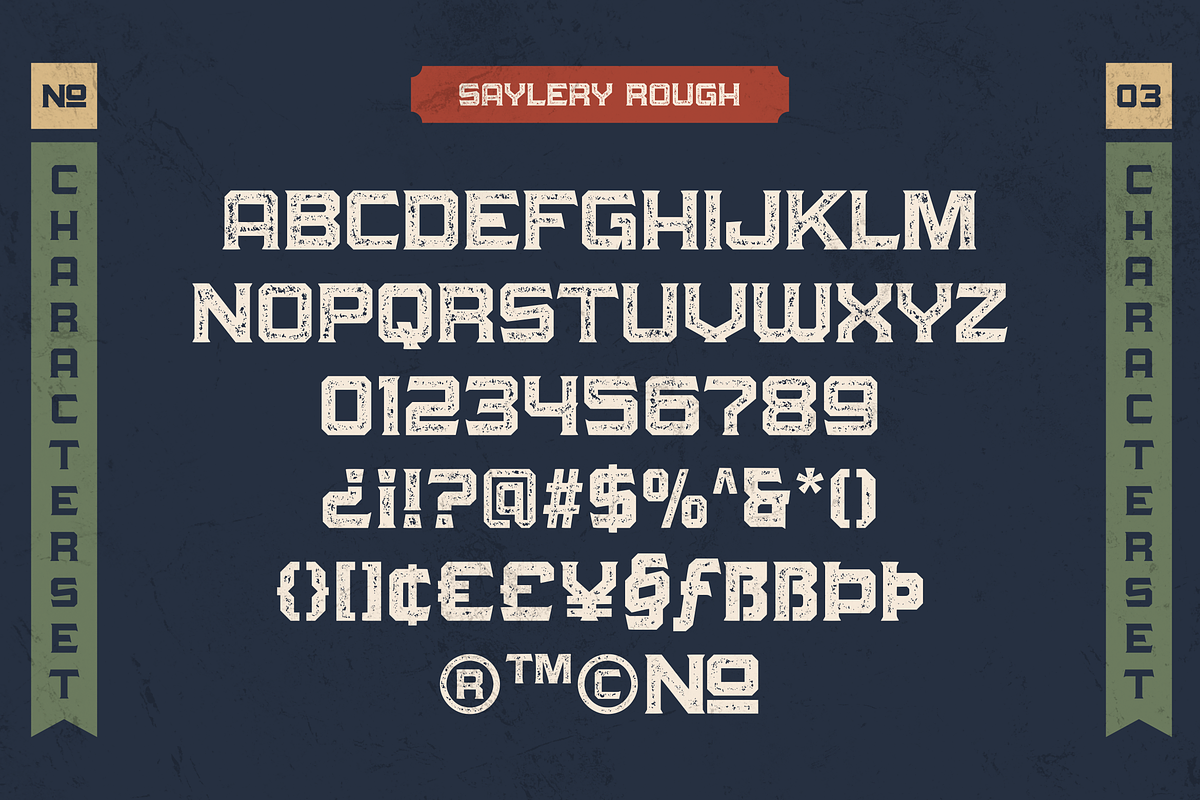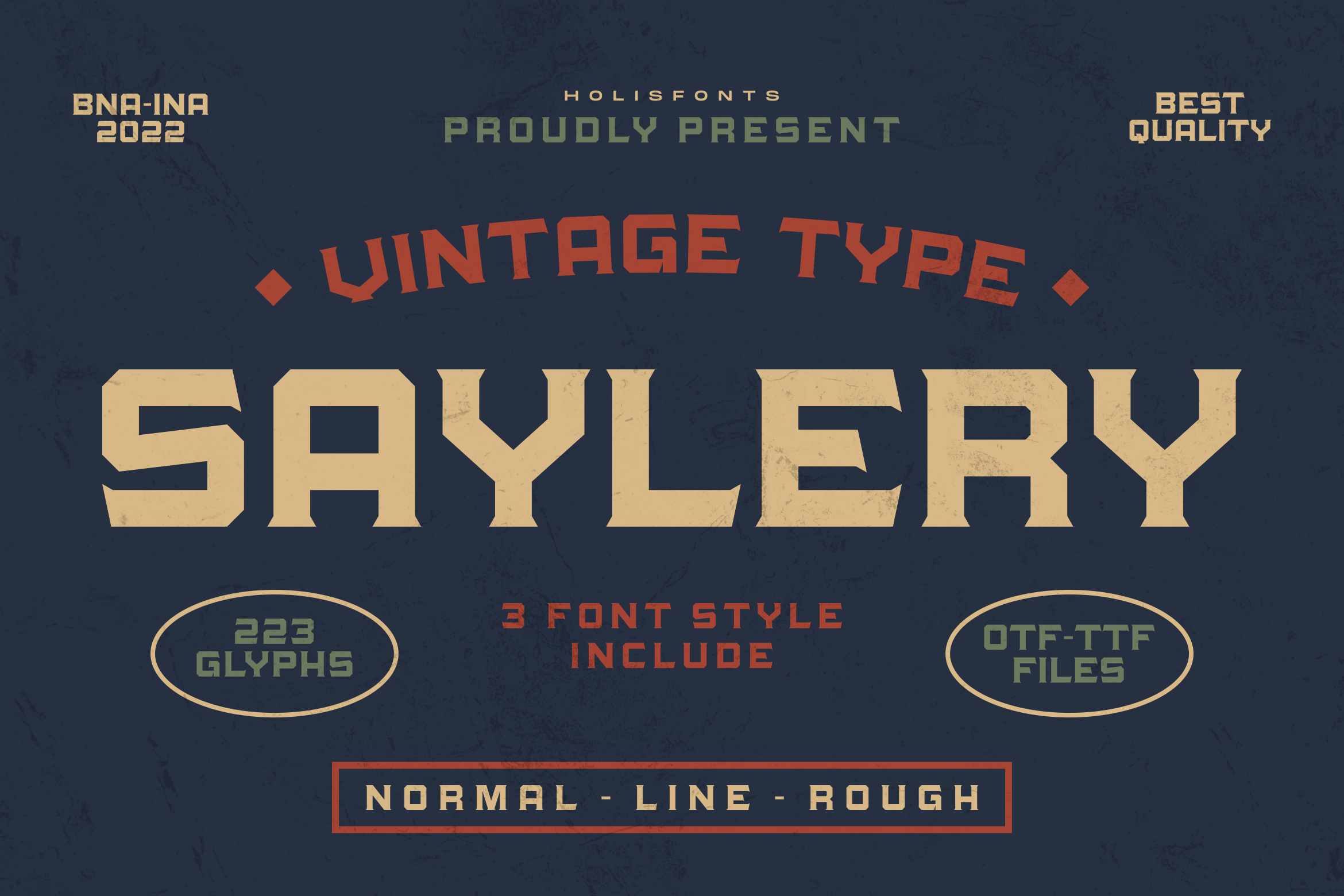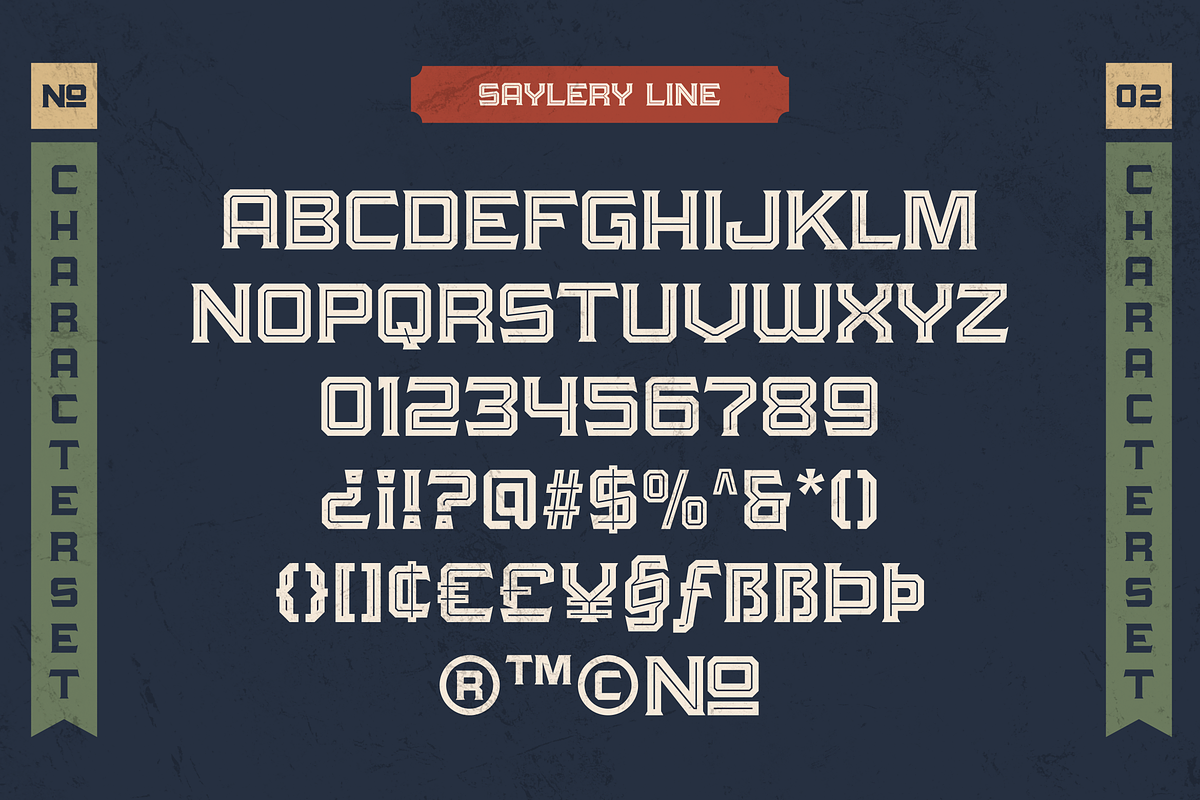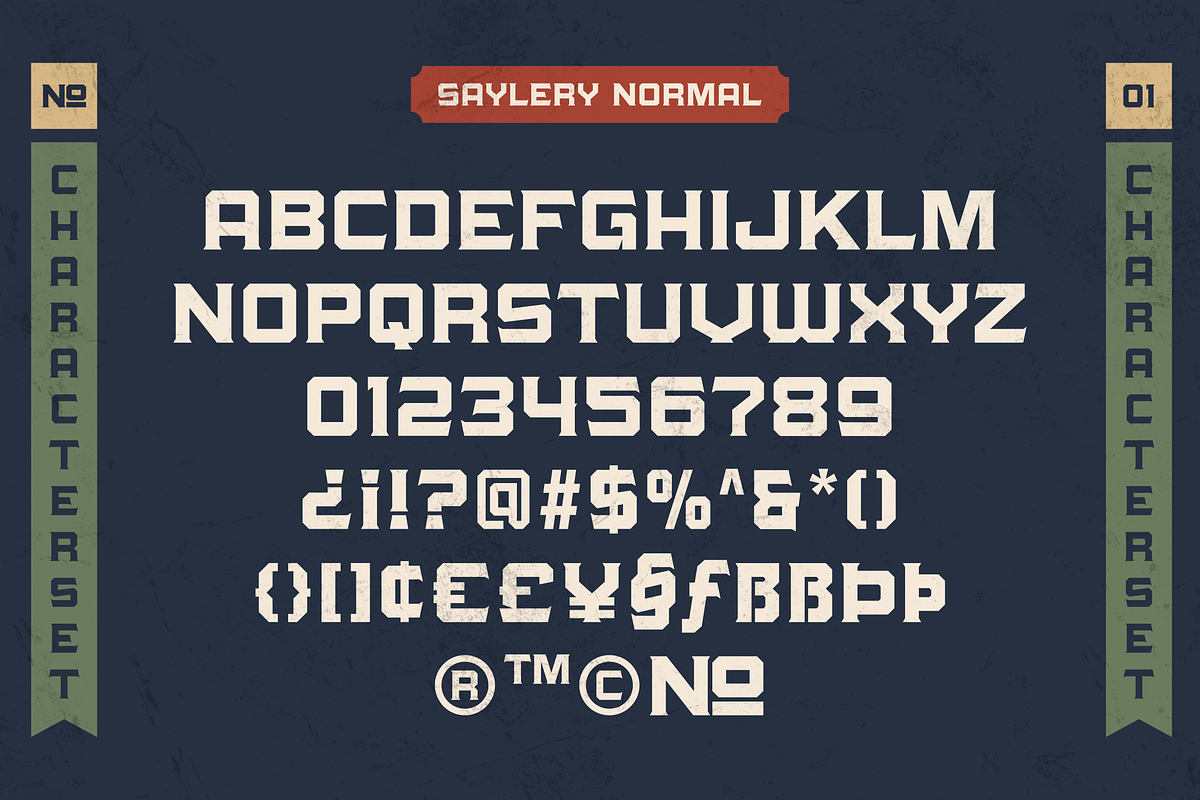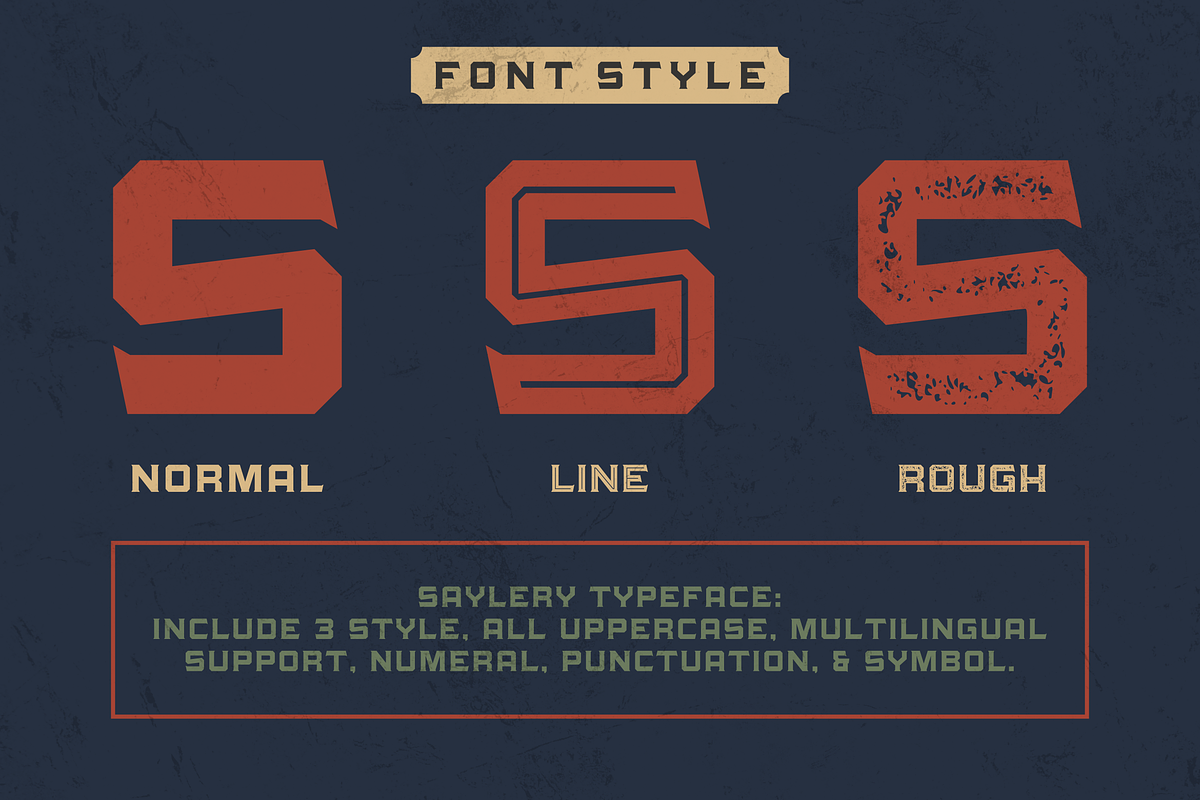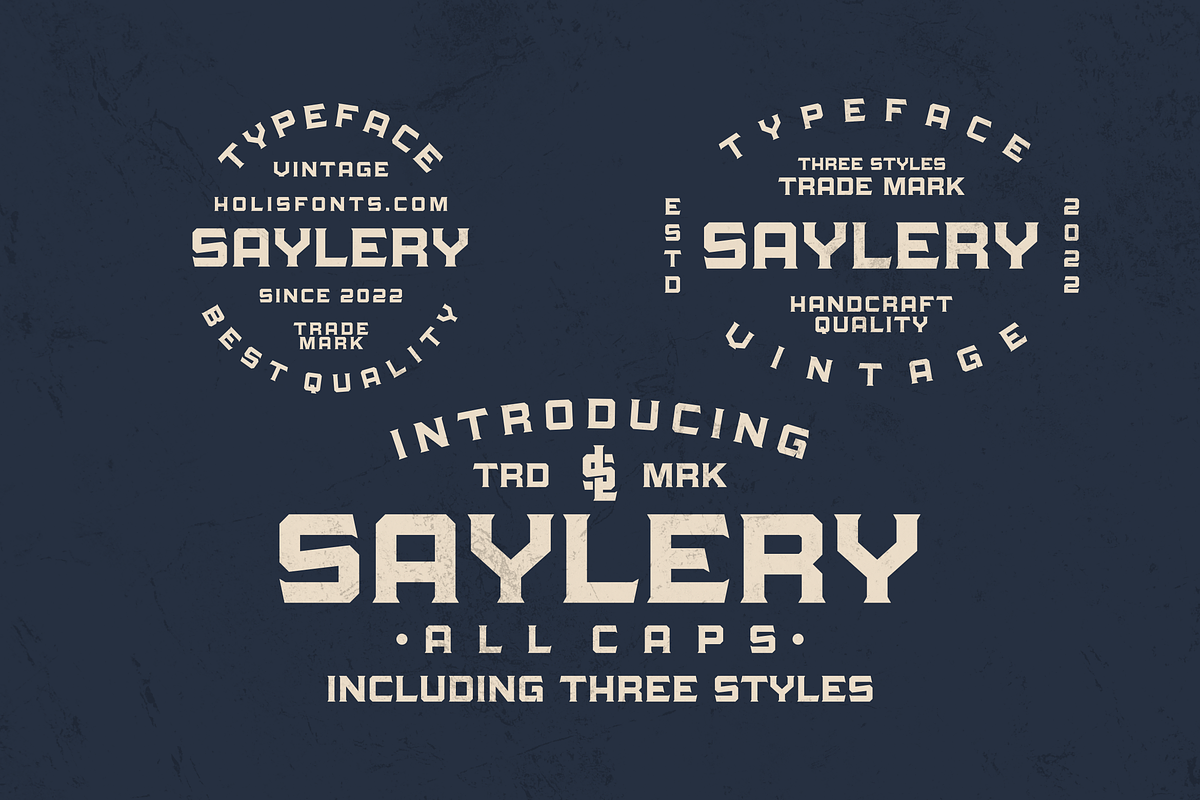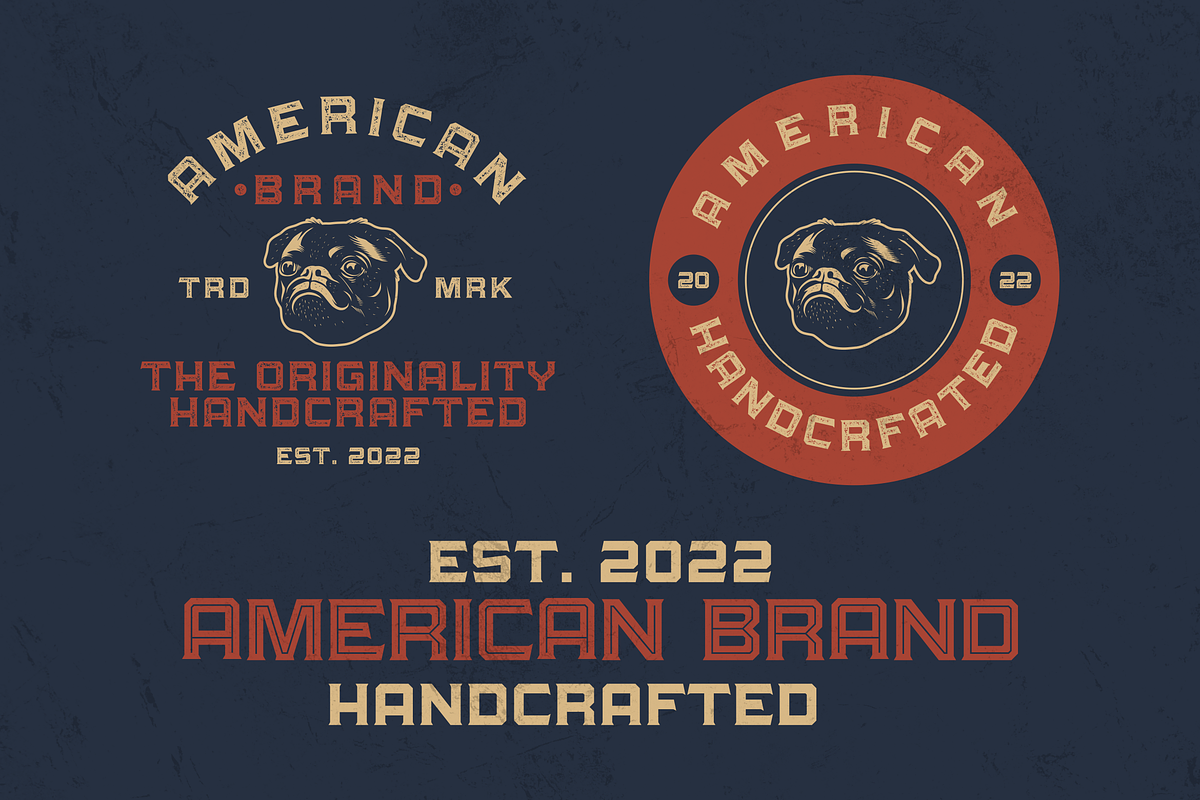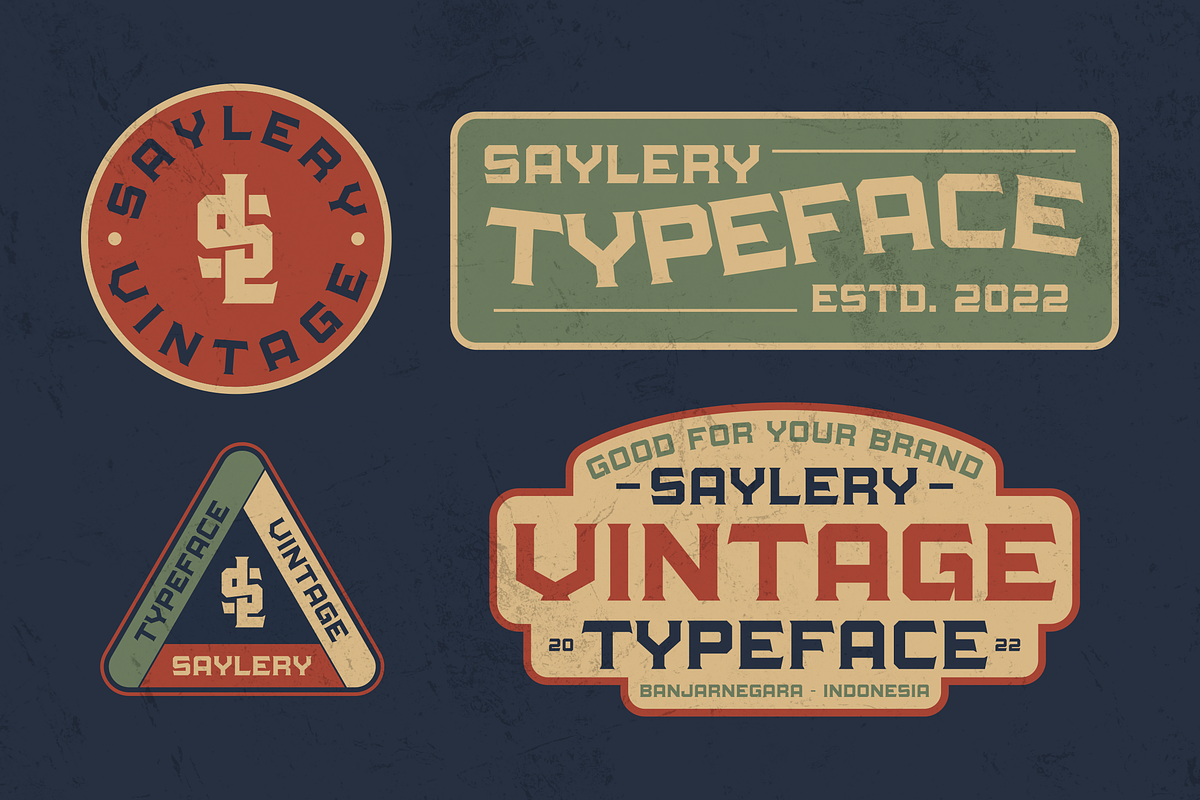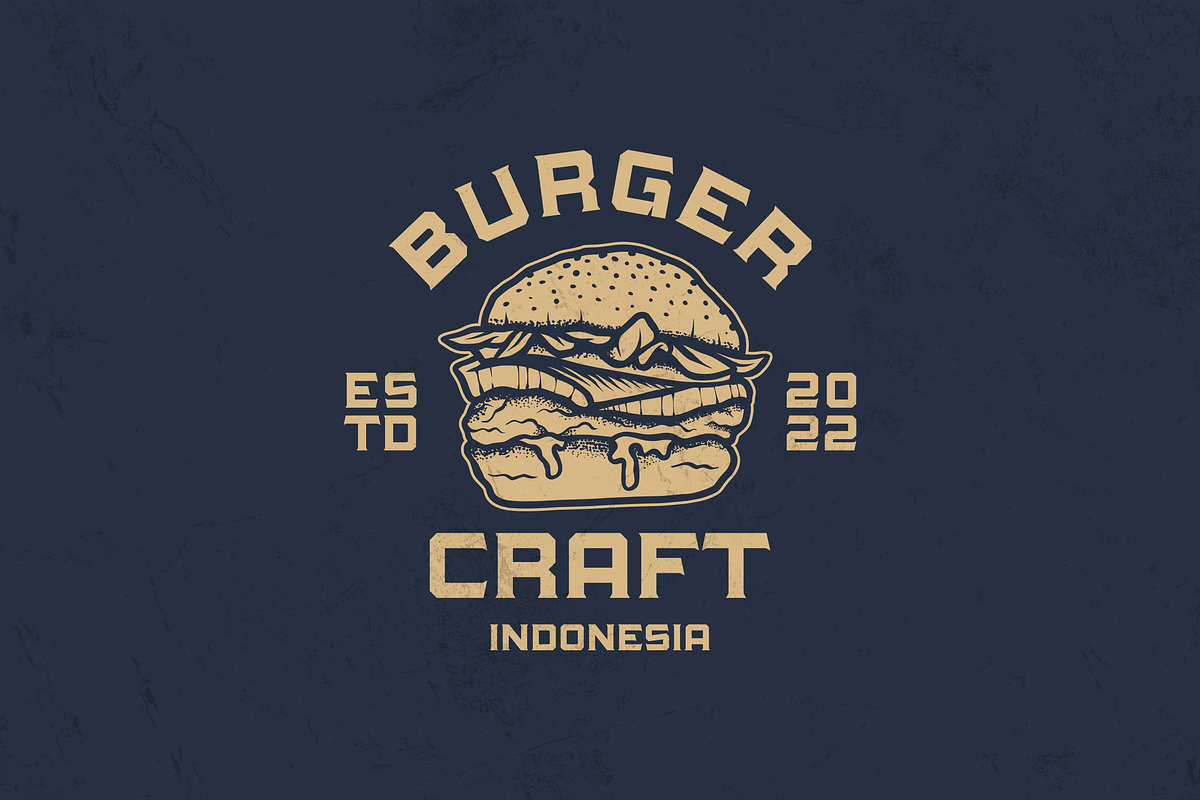
Saylery Typeface
Saylery is a typeface with all caps characters and 3 different styles, from normal, striped and rough. Inspired by old sign painting typing with masculine characters, suitable for workshop branding, apparel brands, design logos, design posters, etc.